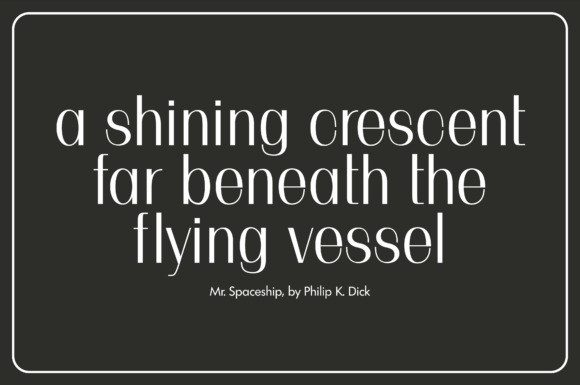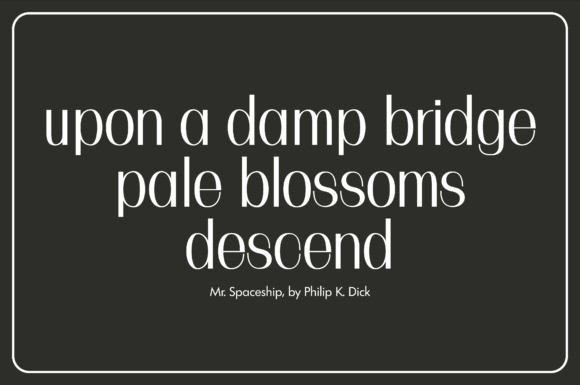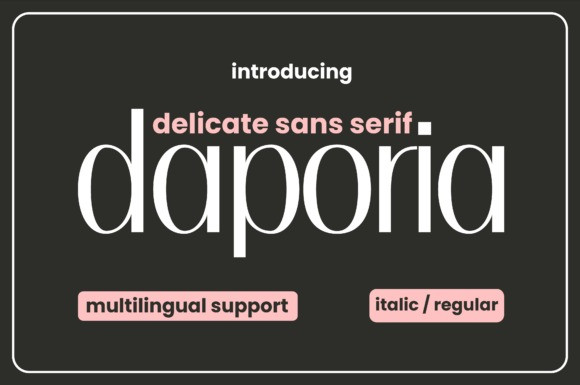
Daporia Font
Daporia Font – the embodiment of delicacy, fluidity, and minimalistic elegance in the realm of sans-serif fonts. Mirror grace and minimalism through daporia’s exquisite letterforms and infuse a classic sophistication into your design endeavors. Boasting versatility, this contemporary font shines in realms stretching from branding and editorial design to the crafting of intricate invitations. Let daporia’s unpretentious elegance and modern charm enrich your masterpieces with a hint of refined simplicity.